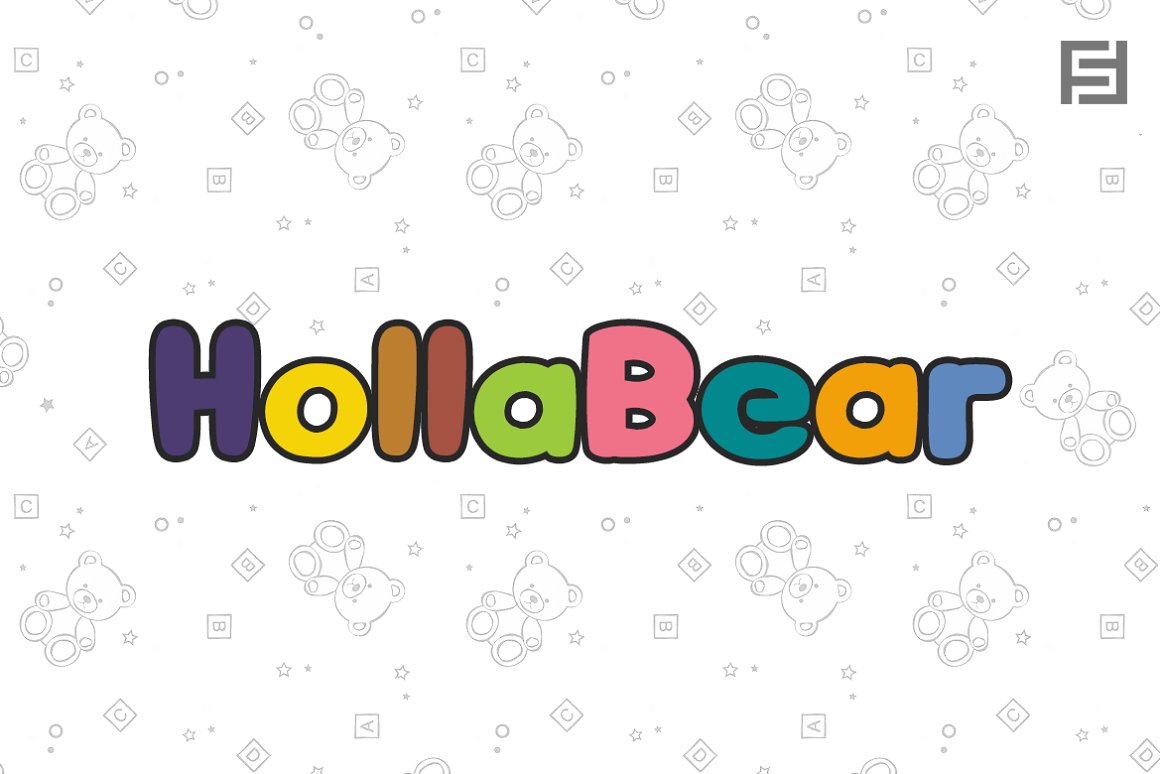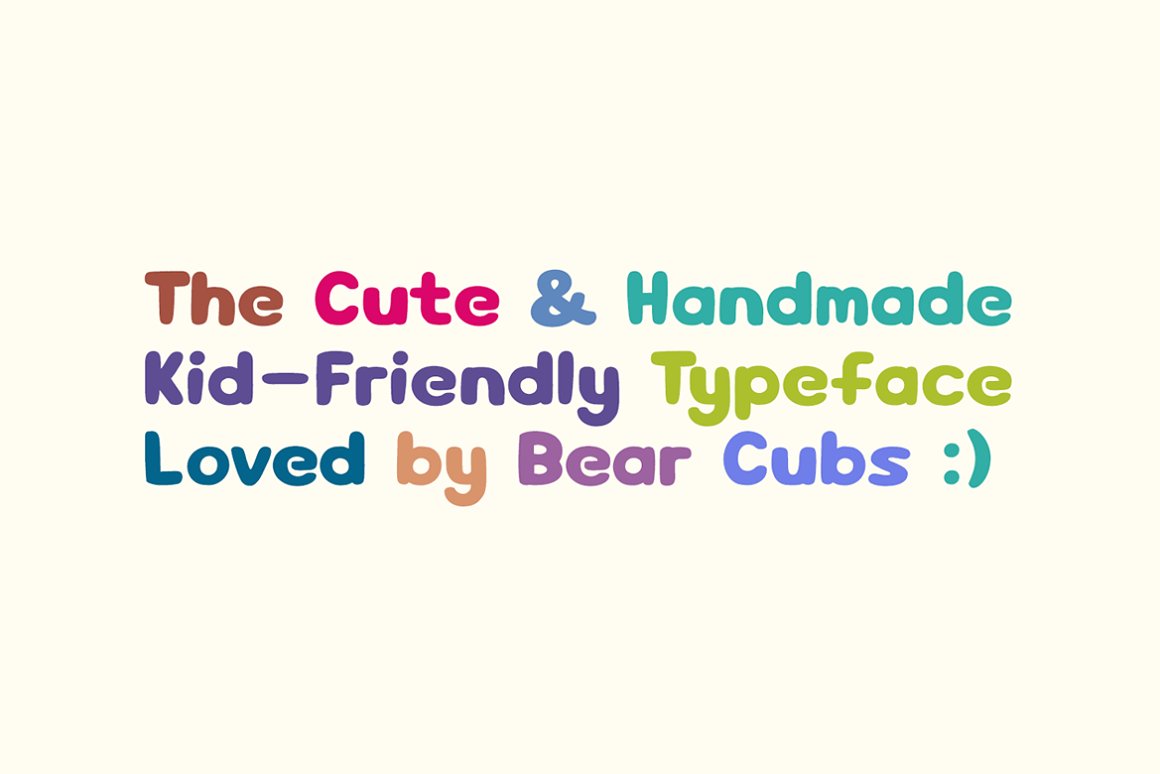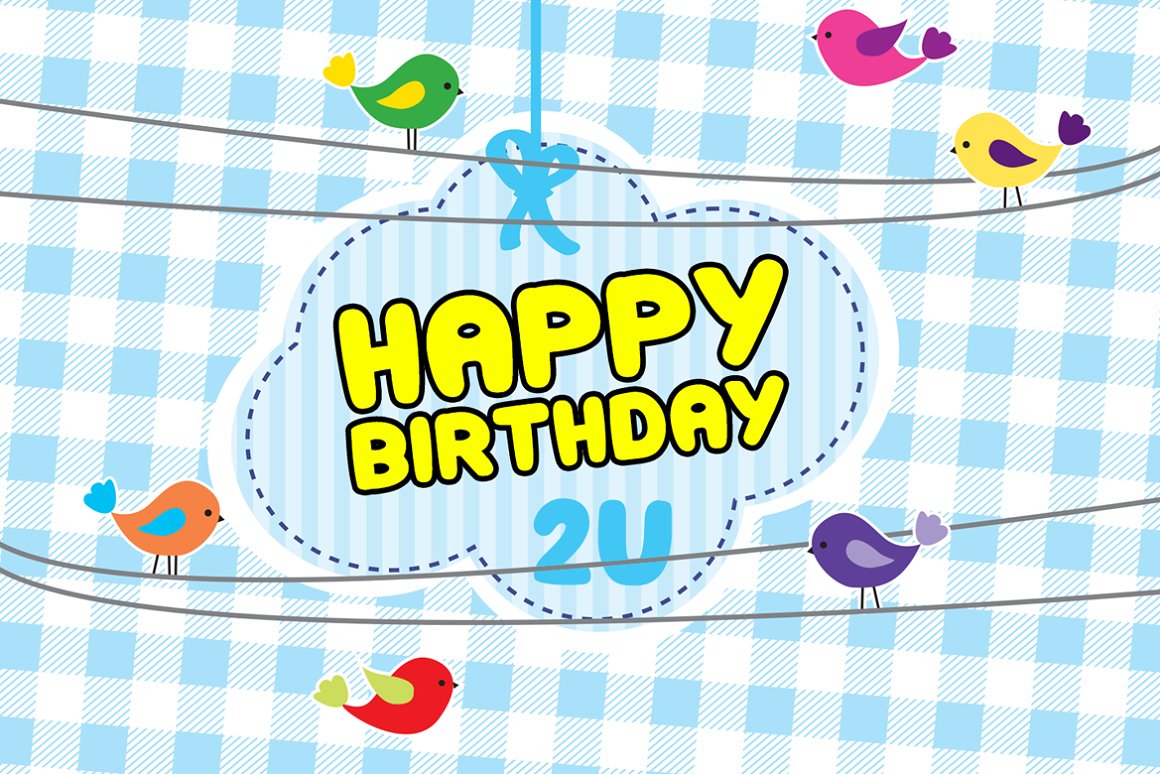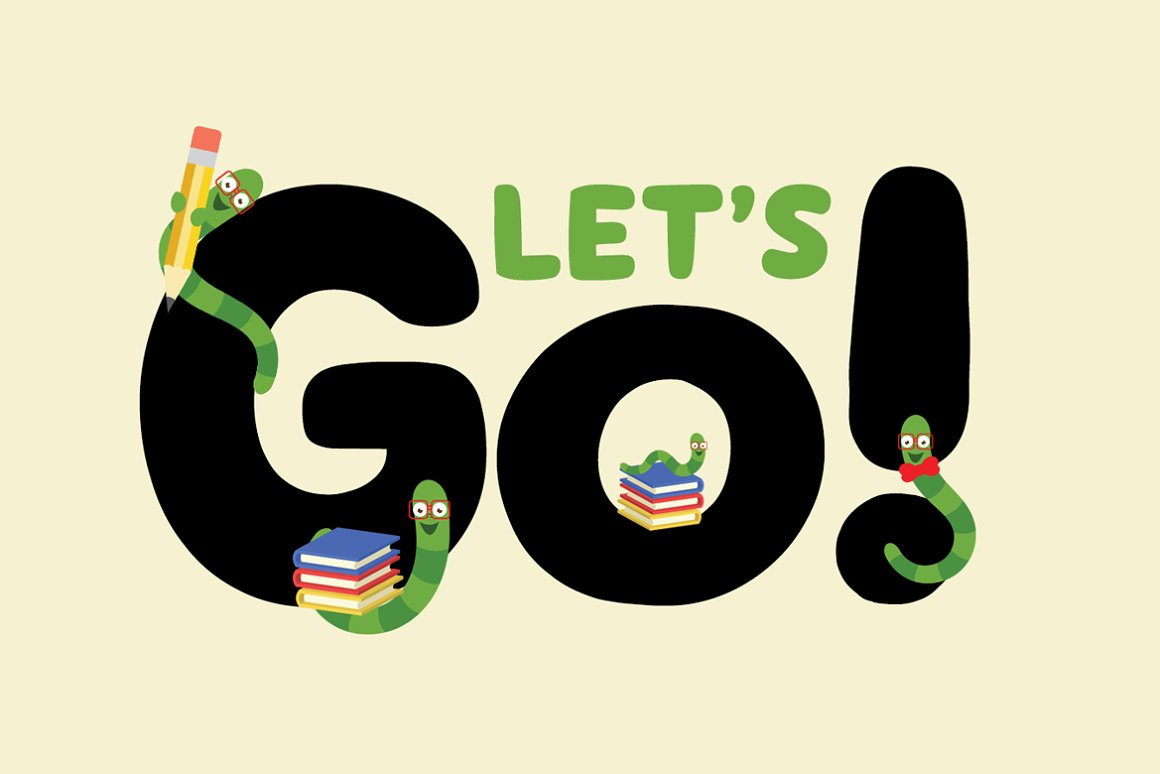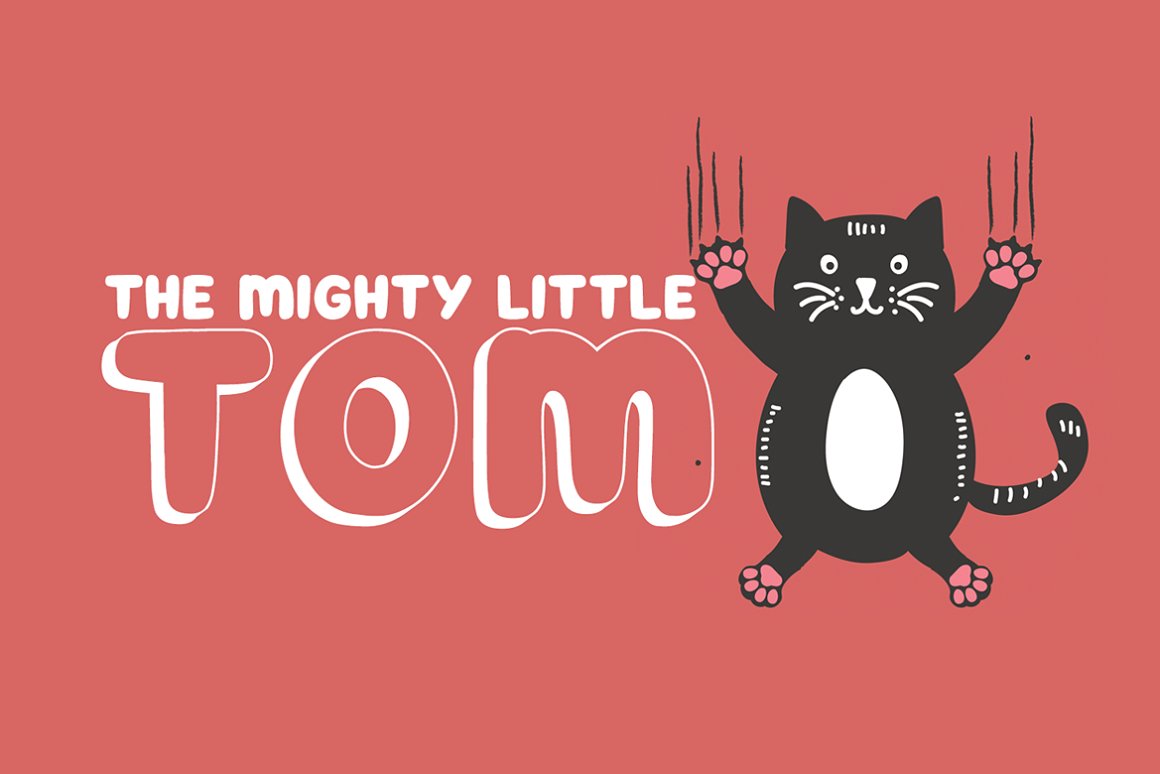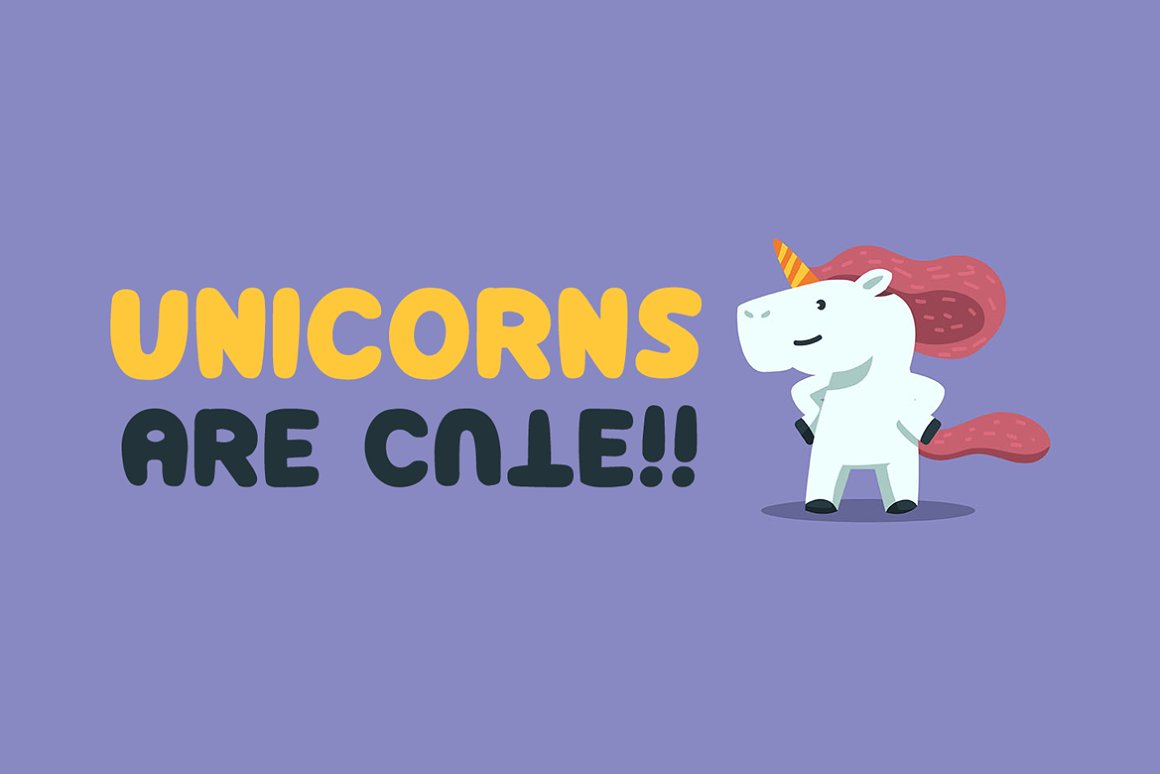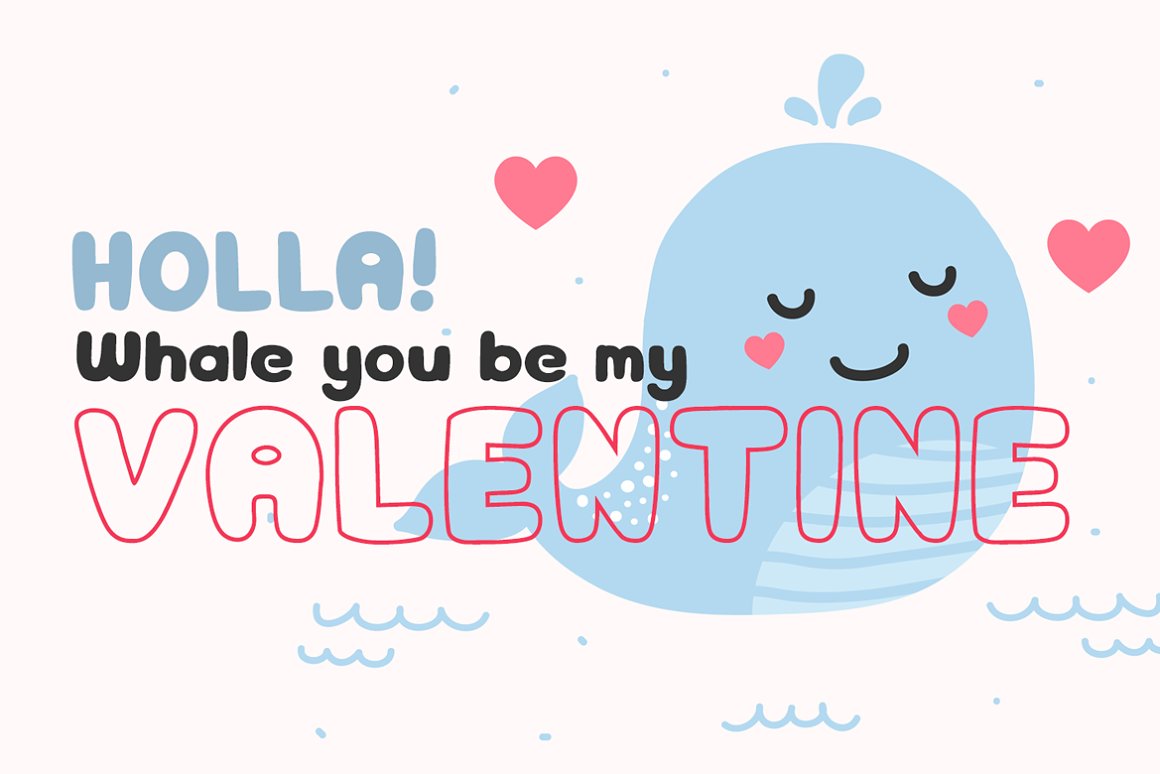
Hollabear is a cute and playful kids font designed with a fun handmade personality and cheerful visual style.
Hollabear is a cute and playful kids font designed with a fun handmade personality and cheerful visual style. Featuring friendly shapes, soft curves, and an imaginative character, it brings a joyful feeling to creative projects. Perfect for children’s books, toys, games, classroom designs, packaging, posters, and playful brand identities.
Hollabear includes extended Latin language support covering Western European, Central European, Baltic, Nordic and South Eastern European languages.